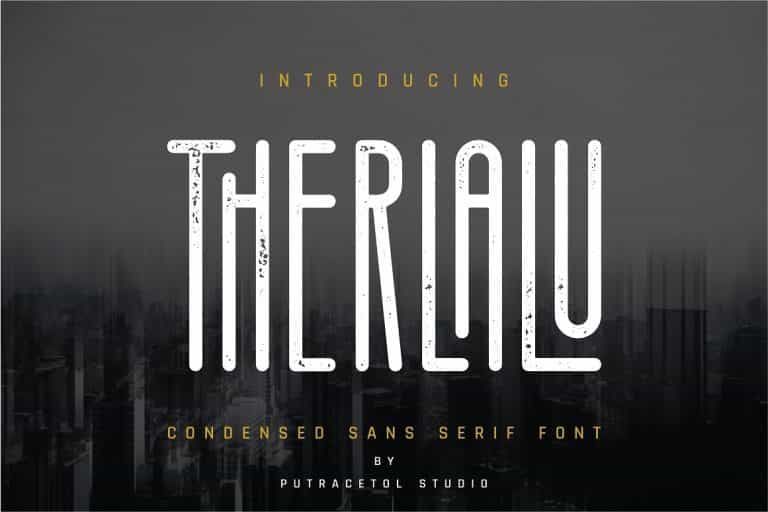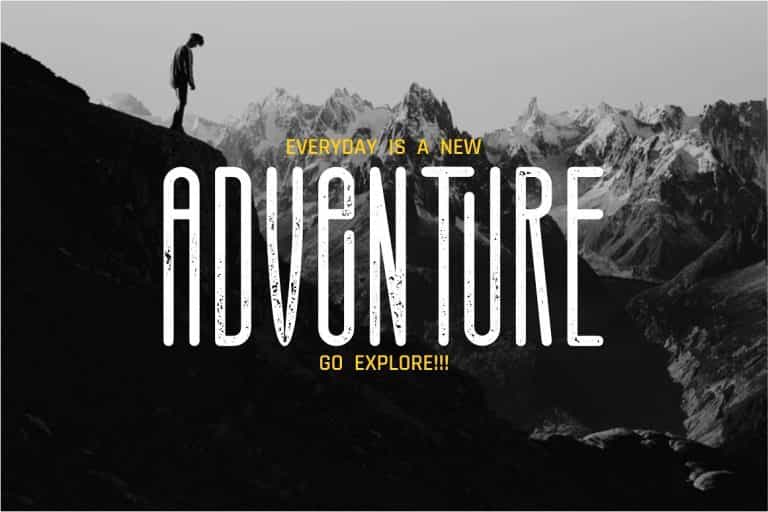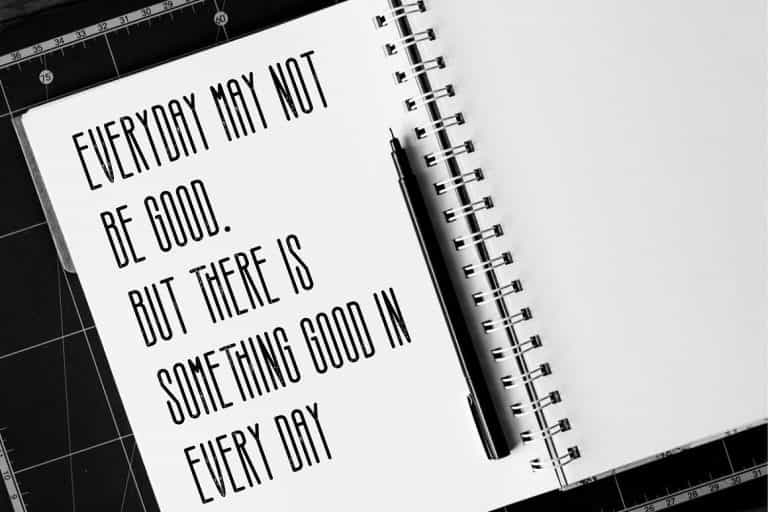
Therlalu Typeface
Introducing Therlalu Font. It is created and distributed by PutraCetol Studio. Therlalu is a contemporary, sans serif, Elegant condensed display font. The font has all lowercase and uppercase letters, punctuation, numerals and multilingual support.